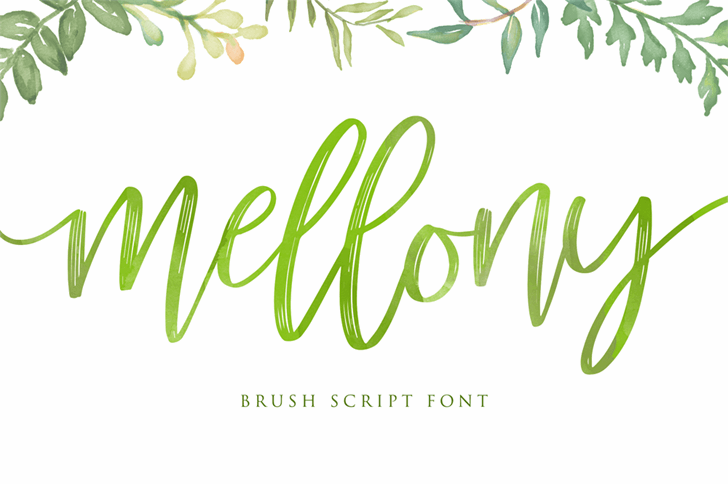
Introducing you to the absolutely beautiful free mellony dry brush font. Go give some love to Font Space for creating this top-notch typeface. Easily amaze your audience with this cool font and make your graphic designs pop up from the crowd.